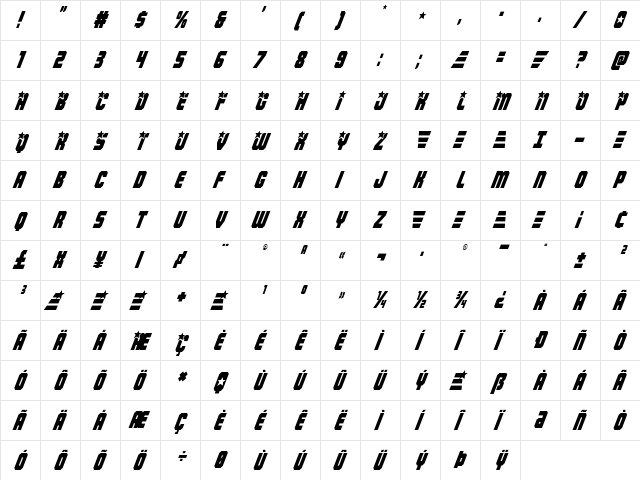
Army Rangers Condensed Italic Condensed Italic
Design Context for Army Rangers Condensed Italic Typeface
Army Rangers Condensed Italic has the no-nonsense character of military stencilling and tactical signage, projecting authority and directness. The slanted form adds forward momentum and visual energy. Its narrow stance lets it pack a punch even in space-constrained designs.
A strong choice for security brands, outdoor gear, and high-stakes visual communication.
Pro Tip: Try Army Rangers Condensed Italic in all-caps for the most authentic military signage feel. It pairs well with stark, minimal layouts and muted colour palettes.